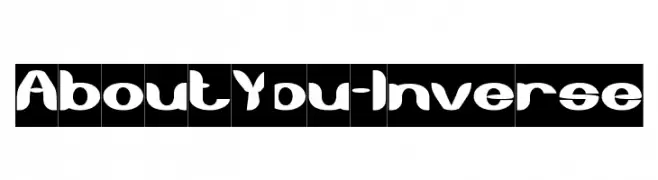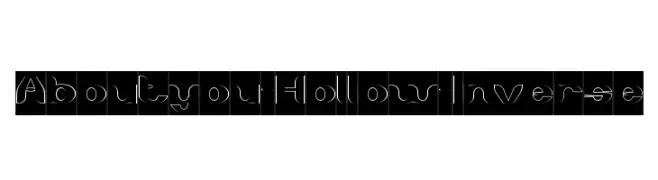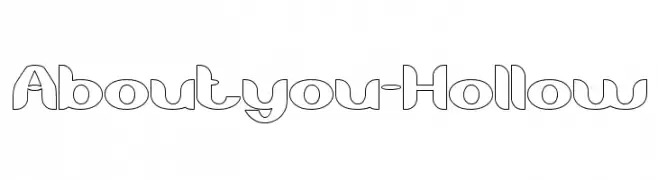
A futuristic, geometric font with bold, interconnected lines and rounded edges.
A pixelated, fragmented font with a futuristic and digital aesthetic.
A fragmented, pixelated font with a modern, edgy style.
A bold, textured font with diagonal line patterns for a dynamic look.
A bold, cursive handwritten font with dynamic, flowing characters.
A bold, playful font with rounded, whimsical characters.
A bold, playful font with thick, rounded strokes and a dynamic style.
A bold, italicized font with a playful, dynamic style and rounded characters.
A bold, italic font with rounded, dynamic characters.
A bold, hollow font with rounded edges and a playful, modern look.
A bold, hollow, and modern font with an inverse outline style.
A bold, playful font with rounded strokes and unique cut-out shapes.
A bold, cursive font with fluid, interconnected characters and elegant flourishes.
A bold, geometric font with a modern and decorative style.
Expressive handwritten font with fluid, cursive strokes.
A collection of intricate and decorative abstract alien symbols.
A modern, linear font with a digital, geometric design.
A modern, abstract font with characters formed by vertical lines.
A bold, futuristic font with geometric shapes and rounded edges.
A futuristic, hollow, and geometric font with a consistent outline style.
A bold, futuristic font with geometric and abstract elements.
A playful and abstract font with geometric shapes and unconventional angles.
A bold, playful font with abstract and dynamic letterforms.
A playful and whimsical font with heart motifs and rounded characters.
A playful, handwritten font with bold, rounded strokes and a casual style.
A bold, italicized font with a playful and dynamic style.
A playful, italicized handwritten font with smooth, rounded strokes.
A playful, handwritten font with smooth curves and bold strokes.
A bold, italic font with smooth curves and a playful, casual style.
A playful, handwritten italic font with smooth, rounded strokes.
A minimalist, geometric font with thin, clean lines and a modern aesthetic.